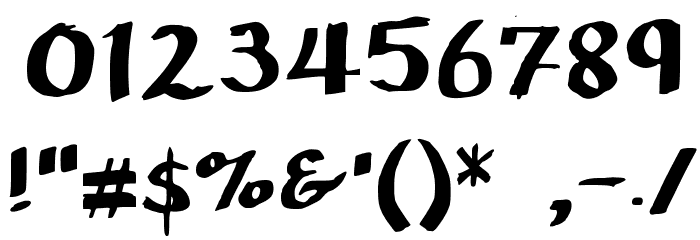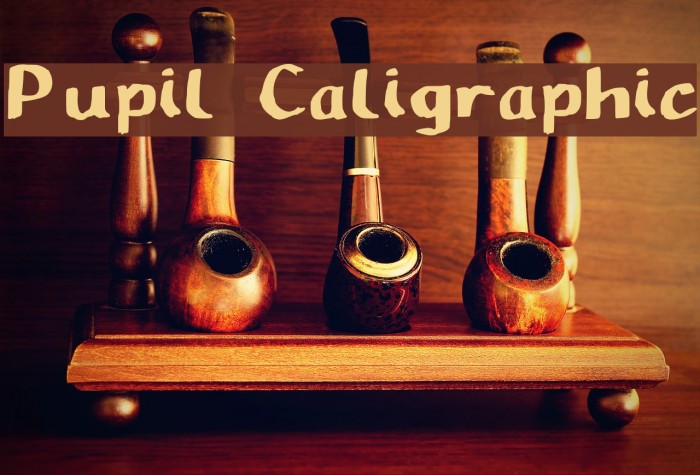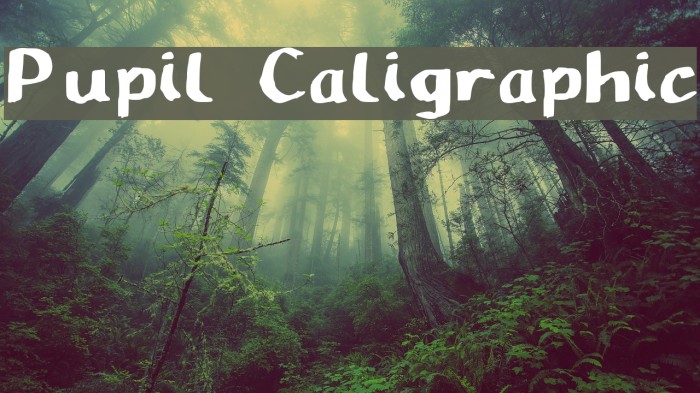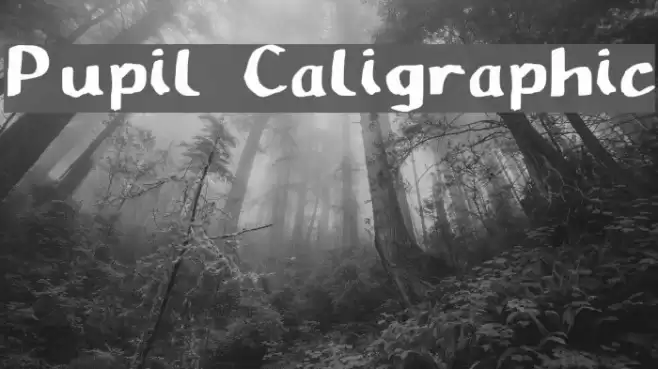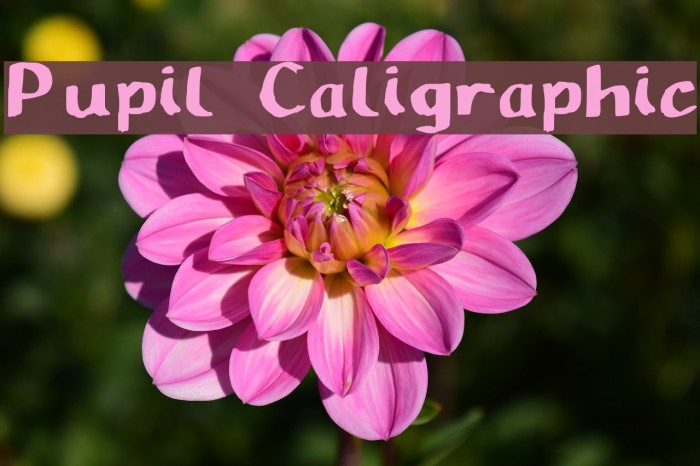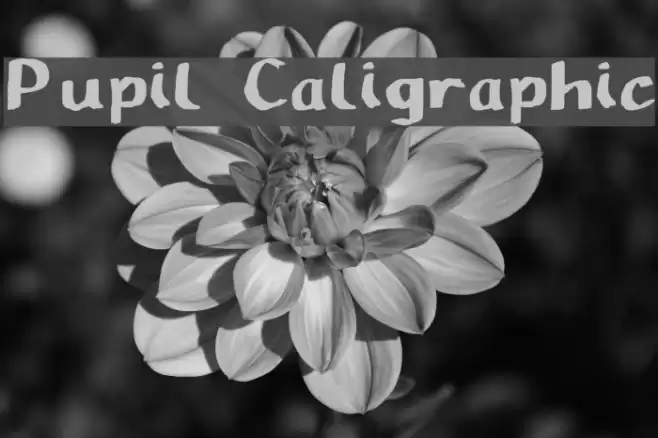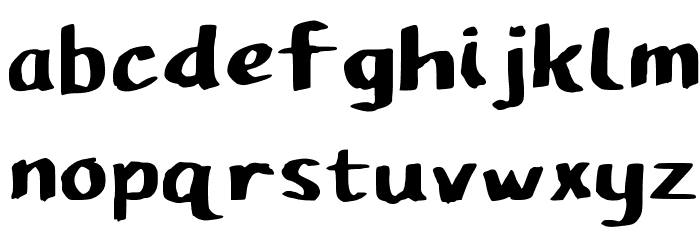
Pupil Caligraphic Font
Pupil Caligraphic Description
This font exhibits a calligraphic style with a hand-drawn appearance, characterized by its fluid and dynamic strokes. The letters have a slightly uneven baseline, adding to the organic and artistic feel. The uppercase letters are bold and prominent, while the lowercase letters maintain a consistent flow, enhancing readability. The numerals are distinct and well-balanced, complementing the overall aesthetic. Special characters are creatively designed, maintaining the font's unique style. This font is ideal for projects that require a personal touch or artistic flair.
| Use Case | Logos, Headlines, Artistic projects |
| Proposed Projects | Ideal for invitations, greeting cards, artistic posters, and branding projects that require a personal touch. |